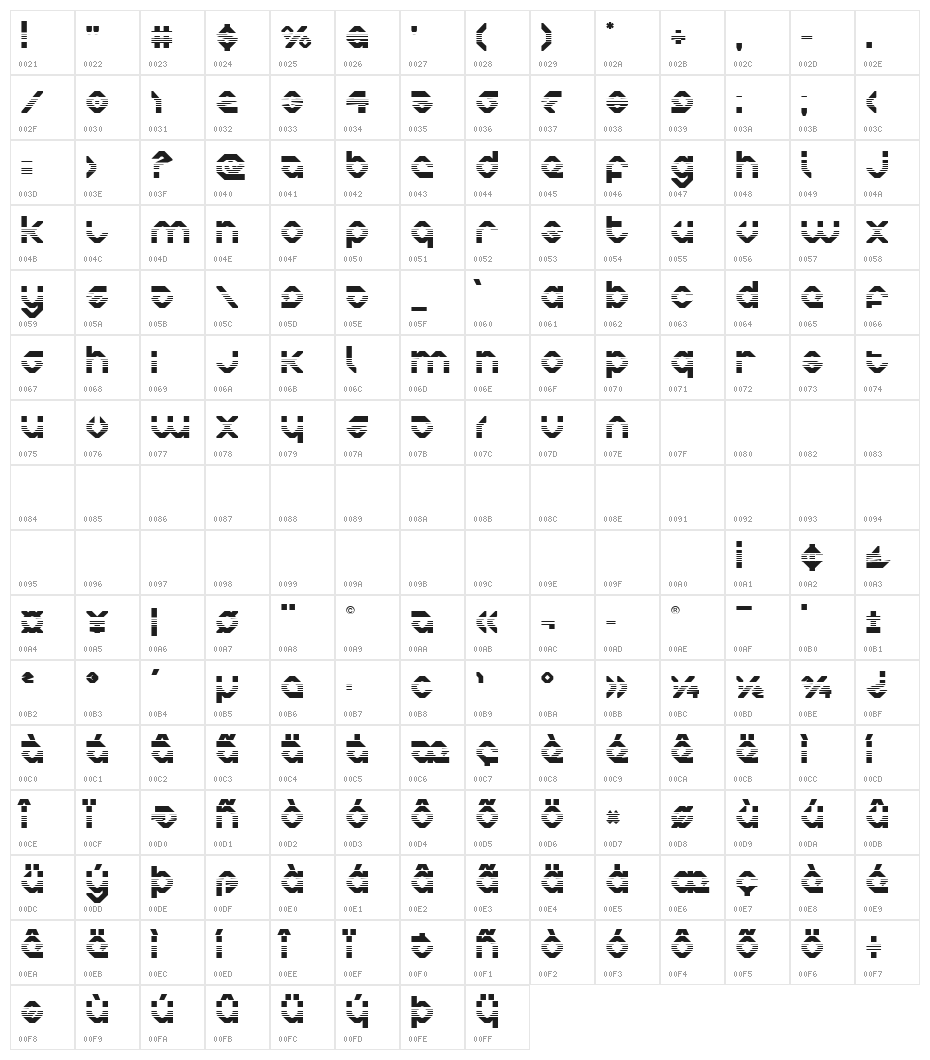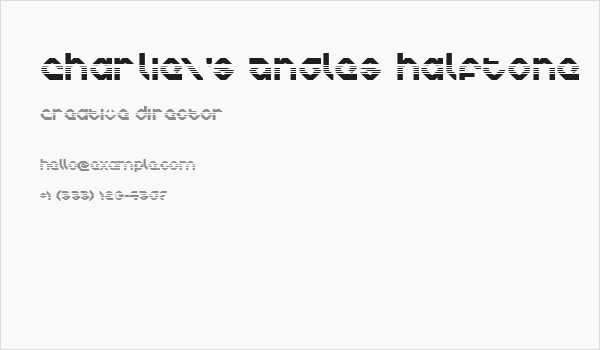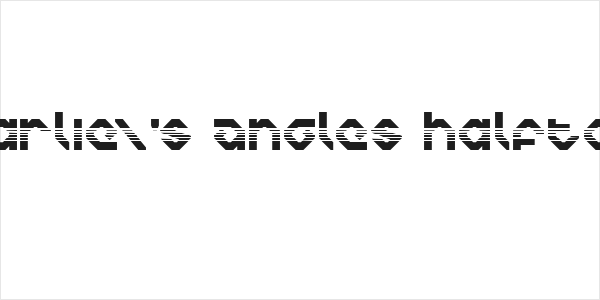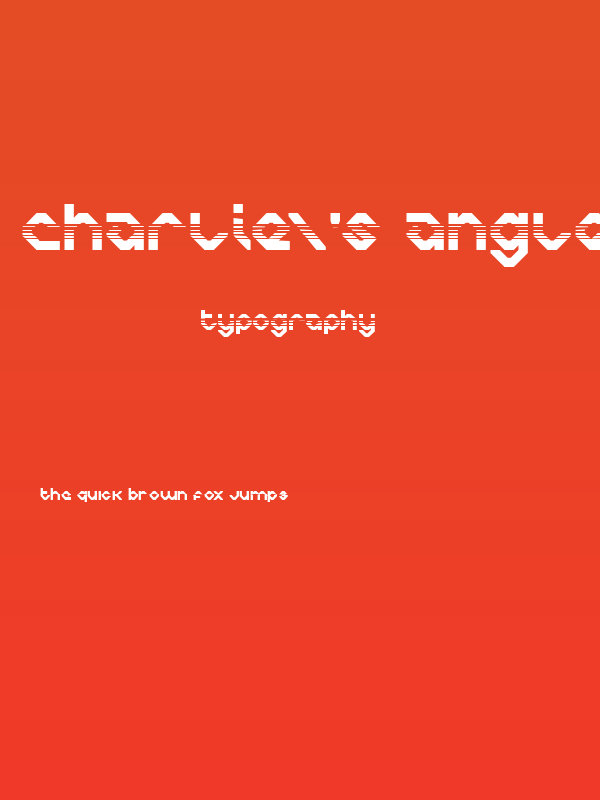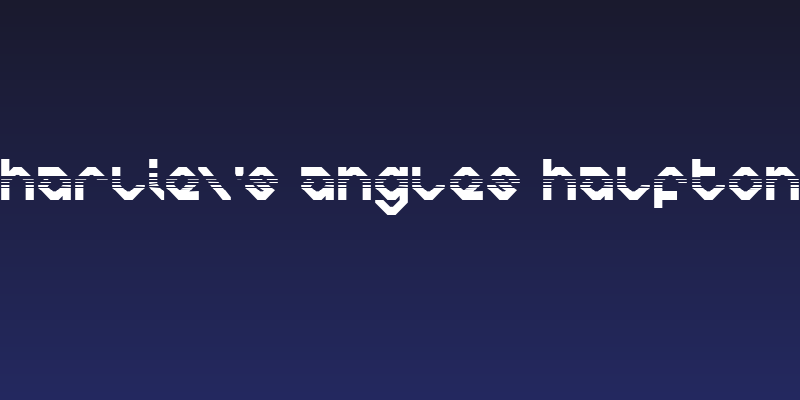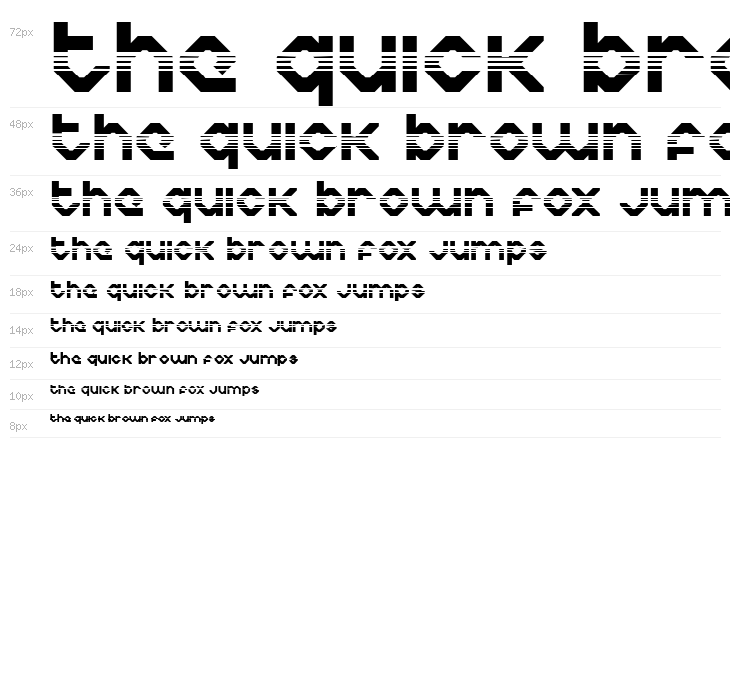
Charlie's Angles Halftone Font
Charlie's Angles Halftone Description
This font features a unique halftone design with a modern, geometric style. Each character is composed of bold, angular shapes intersected by horizontal lines, creating a striking visual effect. The uppercase and lowercase letters maintain a consistent style, with the horizontal lines adding a sense of movement and dynamism. The numerals and special characters follow the same design principles, ensuring uniformity across the font. This font's distinctive appearance makes it ideal for projects that require a bold, contemporary look.
Proposed ProjectsIdeal for branding, posters, album covers, and any design that requires a bold, modern aesthetic.